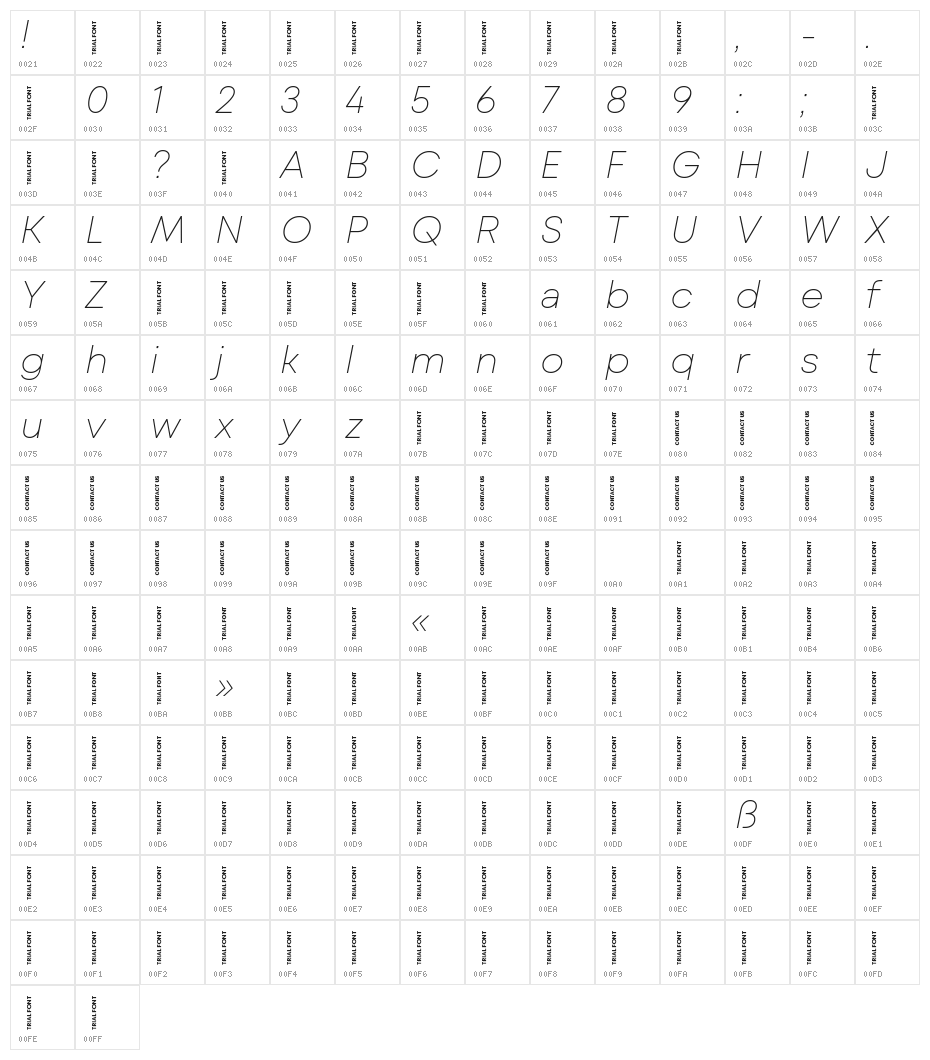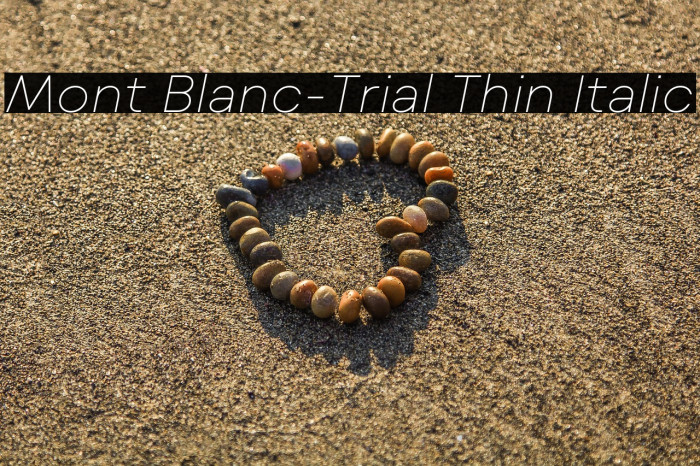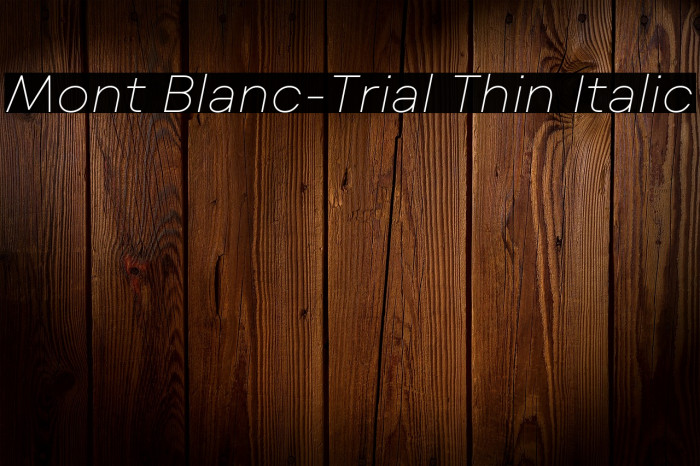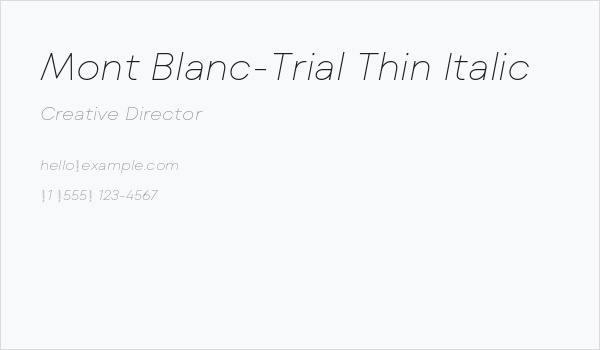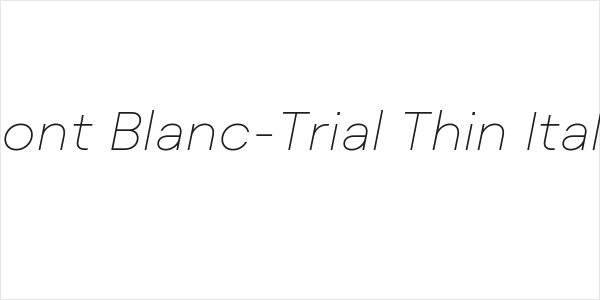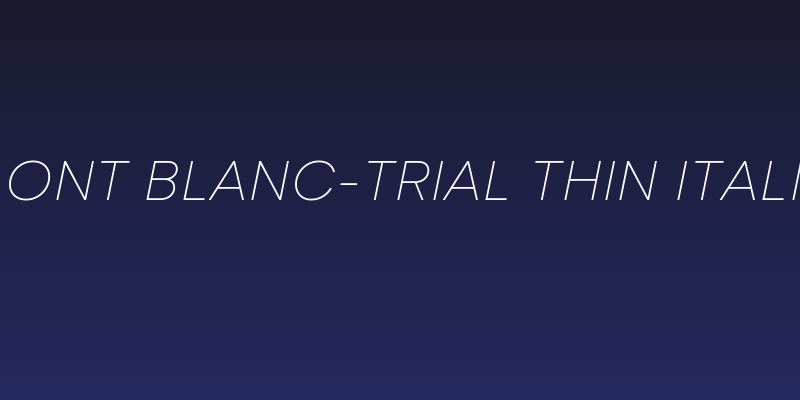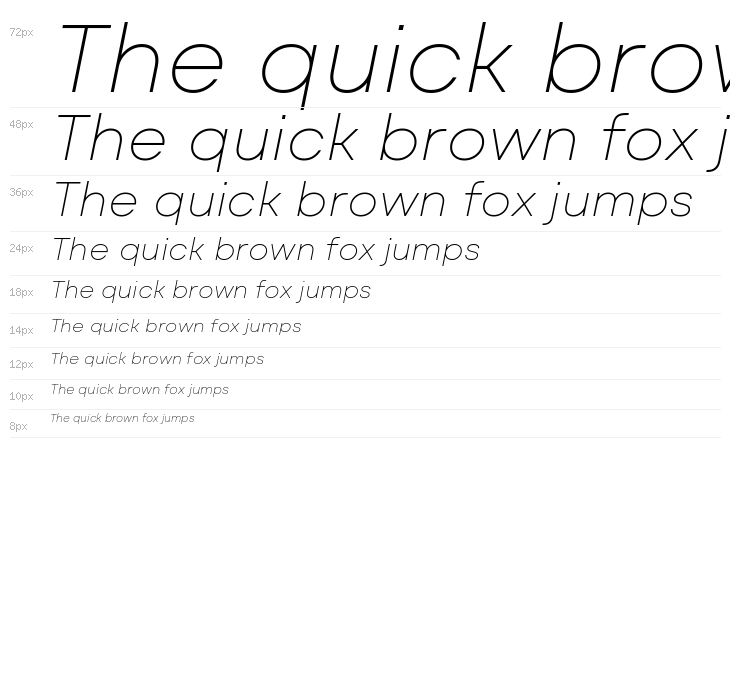
Mont Blanc-Trial Thin Italic Font
Mont Blanc-Trial Thin Italic Description
This font features a sleek and elegant design with thin, elongated characters that convey a sense of modernity and sophistication. The italic style adds a dynamic and fluid quality, making it suitable for creative and contemporary applications. The characters are well-proportioned with a consistent stroke width, contributing to a clean and minimalistic appearance. The font's design emphasizes clarity and readability, making it versatile for various design projects. Its thin strokes and italic slant give it a refined and stylish look, perfect for adding a touch of elegance to any text.
| Proposed Projects | Ideal for fashion magazines, luxury branding, elegant invitations, and modern website headers. |